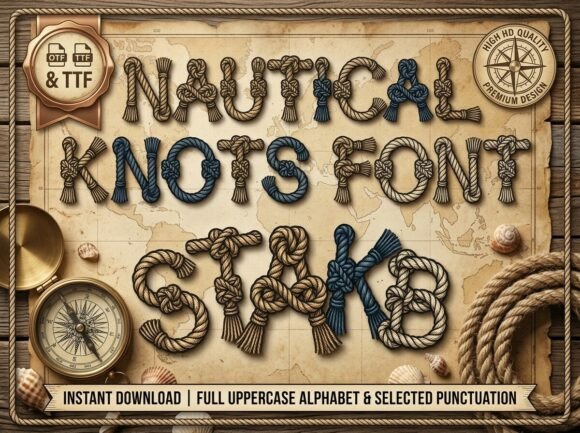
Anchors Aweigh: Discover the Nautical Charm of Abigail Font
I’ll never forget the design project that led me to discover Abigail Font. I was working on a branding campaign for a yacht club, and I was struggling to find the perfect font that captured the essence of the sea. The client wanted something that would evoke the feeling of dockside charm, with a touch of adventure and sophistication. After scouring the internet and trying out various fonts, I stumbled upon Abigail Font, and it was love at first sight!
A Personal Review of Abigail Font
As a designer, I’m always on the lookout for fonts that can elevate my projects and make them stand out. Abigail Font is definitely one of them. Here’s what I love about it:
- ✨ Highly detailed display typeface with handcrafted letterforms
- ✅ Authentic “dockside” aesthetic that screams nautical charm
- 🔥 Organic silhouettes that add a touch of whimsy to any design
- 💯 Perfect for yacht club branding, seafood restaurant menus, coastal wedding stationery, and maritime-themed apparel
Of course, no font is perfect, and Abigail Font has a few quirks:
- 🤔 Limited use in body text due to its decorative nature
- ⚠️ May require some kerning adjustments for optimal spacing
The Story Behind Abigail Font
Abigail Font was designed by a team of creatives who are passionate about the sea. The font’s lead designer, Emma, grew up sailing with her family and always loved the aesthetic of nautical typography. She wanted to create a font that would capture the essence of the sea and bring a touch of maritime charm to design projects. With Abigail Font, Emma and her team aimed to create a font that’s both decorative and authentic.
| What is Abigail Font best used for? | Abigail Font is perfect for yacht club branding, seafood restaurant menus, coastal wedding stationery, and maritime-themed apparel. |
| Is Abigail Font suitable for body text? | No, Abigail Font is a decorative font that’s best used for headlines and titles. It’s not suitable for body text due to its ornate nature. |
| Does Abigail Font come with OpenType features? | Yes, Abigail Font features OpenType features like ligatures, stylistic alternates, and glyphs. |